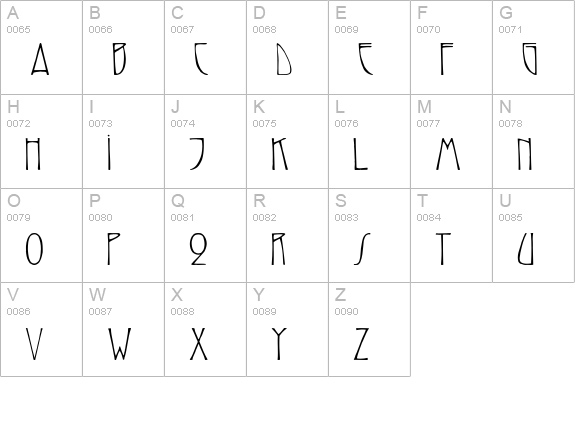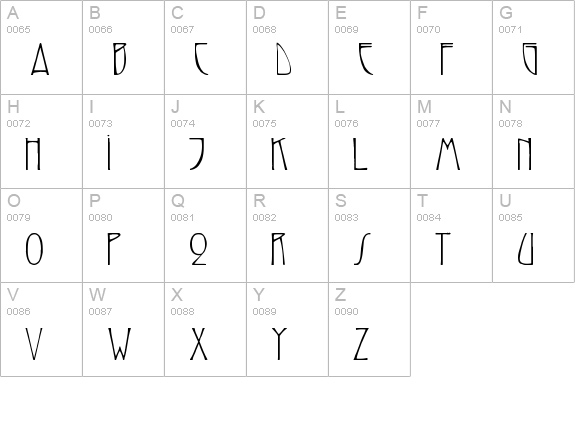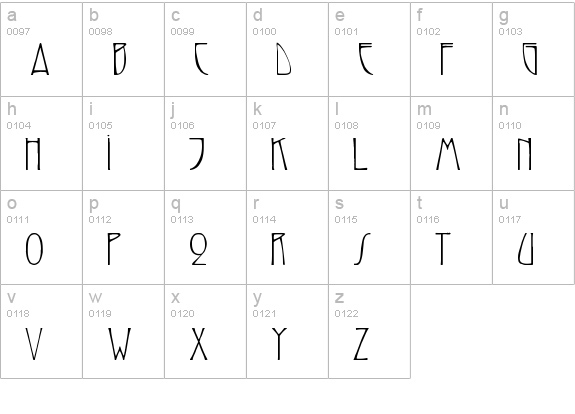
Introducing ReynoldCaps, a stunning and versatile font that embodies elegance and sophistication. With its clean lines and meticulous attention to detail, this font is perfect for adding a touch of class to any design project. ReynoldCaps is a true work of art, carefully crafted to bring your words to life. Its refined letterforms exude a sense of timeless beauty, making it suitable for a wide range of applications, from wedding invitations to branding projects and everything in between. What sets ReynoldCaps apart is its versatility. From bold headlines to delicate script, this font can effortlessly adapt to any style or mood. Its extensive character set includes a variety of ligatures and alternates, allowing you to explore endless design possibilities and create truly unique compositions. And the best part? ReynoldCaps is absolutely free! That's right, this exquisite font is freely available to download at FontsMarket.com. Now you can elevate your designs without breaking the bank. So why wait? Unleash your creativity and download ReynoldCaps today. Experience the beauty and versatility of this remarkable font and discover why it has become a favorite among designers around the world.